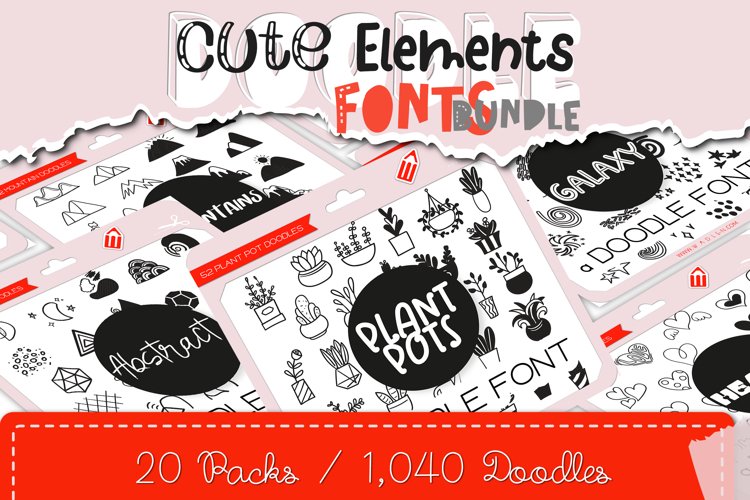
The Cute Element Fonts Bundle is here with 20 themes of premium cute & sweet handwritten doodle fonts. This bundle has a wide range of themes, Abstract, Arrows, Bows, Clouds, Confetti, Flowers, Galaxy, Hearts, Leaves, Love, Mountains, Plant Pots, Plants, Rainbows, Shapes, Space, Speech Bubbles, Stars, Trees, Vines.
Cute Elements Bundle is perfectly suited for Quotes, Branding, Logos, Greeting Cards, Invitations, Stationery Design, Children's designs, T-shirts, Packaging designs, Poster, Typographic designs, Papercrafts, Digital crafts, and so much more!
Fonts Included:
52 Plant Pot Doodles
52 Bow Doodles
52 Confetti Doodles
52 Flower Doodles
52 Abstract Doodles
52 Mountain Doodles
52 Tree Doodles
52 Love Doodles
52 Shape Doodles
52 Speech Bubble Doodles
52 Arrow Doodles
52 Rainbow Doodles
52 Vine Doodles
52 Cloud Doodles
52 Heart Doodles
52 Galaxy Doodles
52 Leave Doodles
52 Space Doodles
52 Star Doodles
52 Plant Doodles